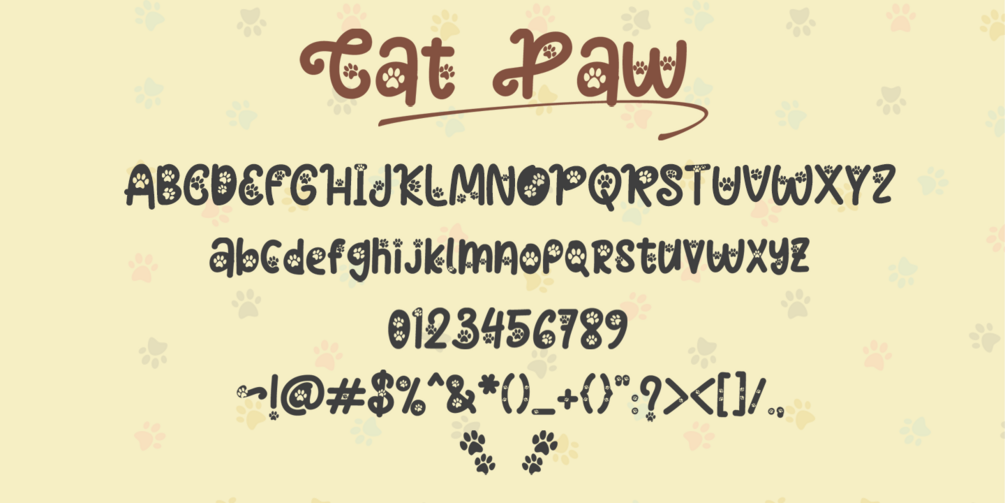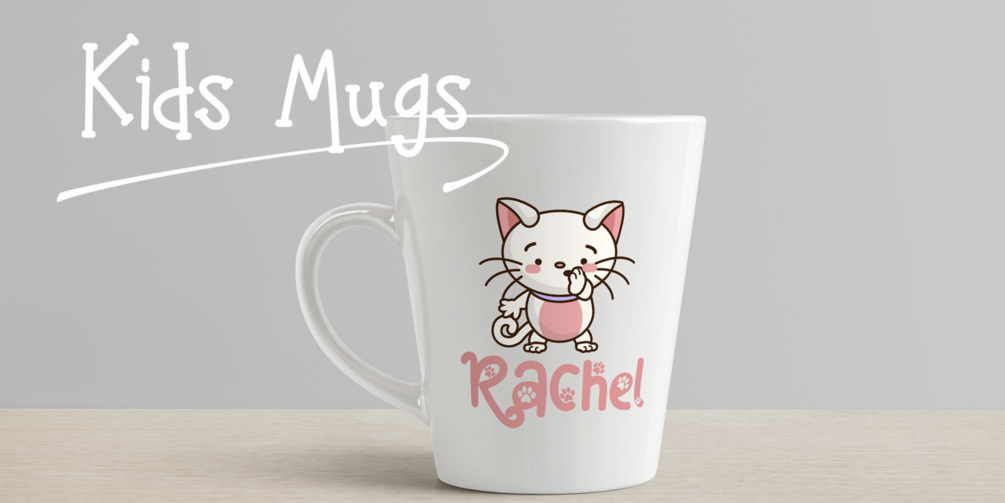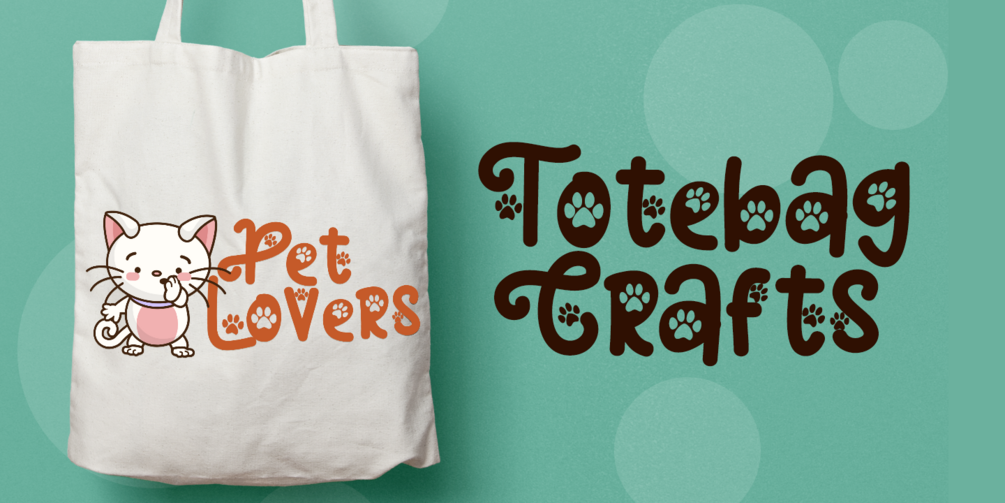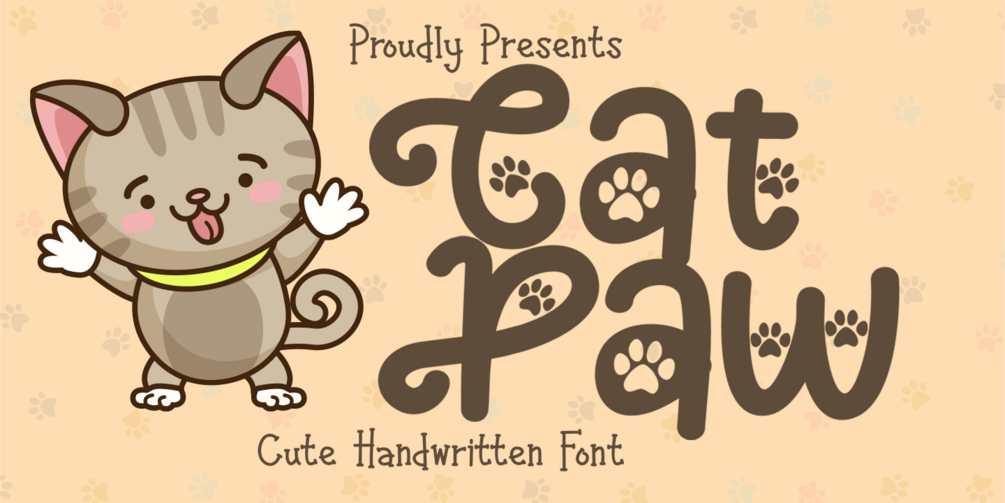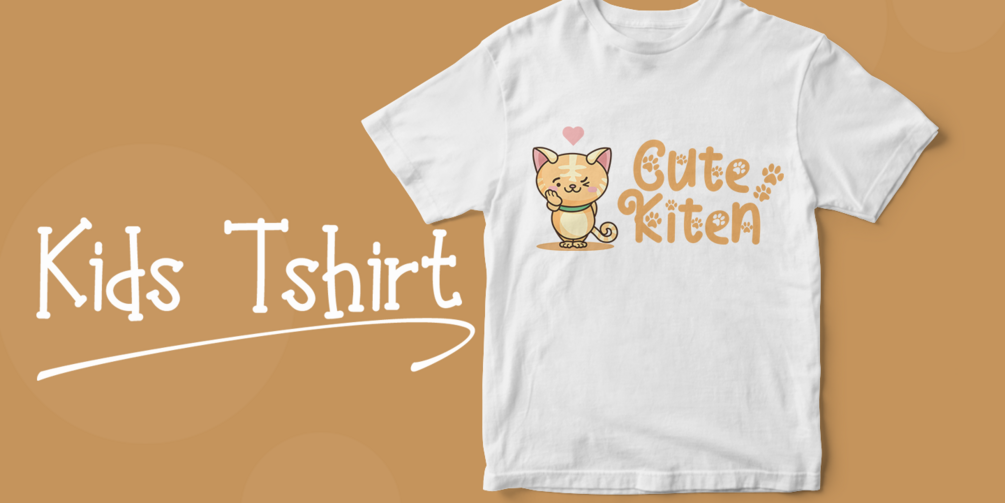
Cat Paw Font
Looking for a font that’s as playful as it is charming?
Cat Paw is the whimsical, handwritten font that adds a delightful cat paw print theme to your creative projects, bringing fun and personality wherever it’s used!
Whether you're designing logos, invitations, branding, or unique SVG files, Cat Paw is the perfect choice for any design that needs a touch of playful elegance. Its lighthearted style is ideal for everything from wedding designs to pet-related branding, digital art, and even sublimation projects.
🐾 Playful cat paw print theme for added charm
🐾 Perfect for wedding invitations, logos, branding, stationery, SVGs, and more
🐾 Multilingual support for global reach
✨ Make your designs stand out with a dash of feline fun—Cat Paw brings the playfulness your projects deserve!